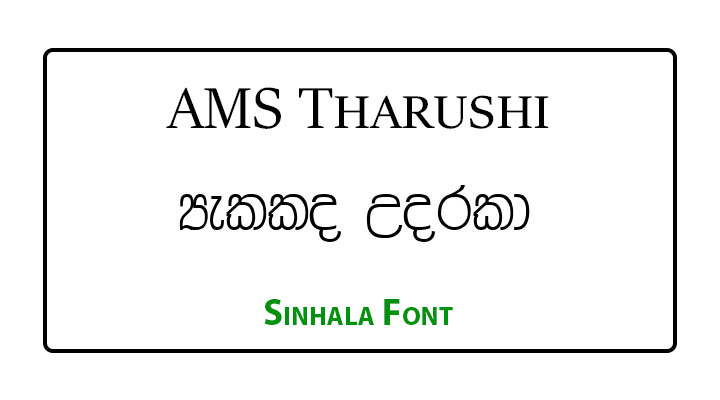
AMS Tharushi is a widely used Sinhala font that is popularly used for digital and print applications in Sri Lanka. Developed by Microsoft, it is designed to provide clear and aesthetically pleasing Sinhala script representation on computers and other devices. The font’s design includes a range of characters, consonants, vowels, and diacritics, making it suitable for accurately displaying Sinhala text.
Why AMS Tharushi
- Simple Design
- Most Popular Font
- Suitable for Publication and Graphic Designing